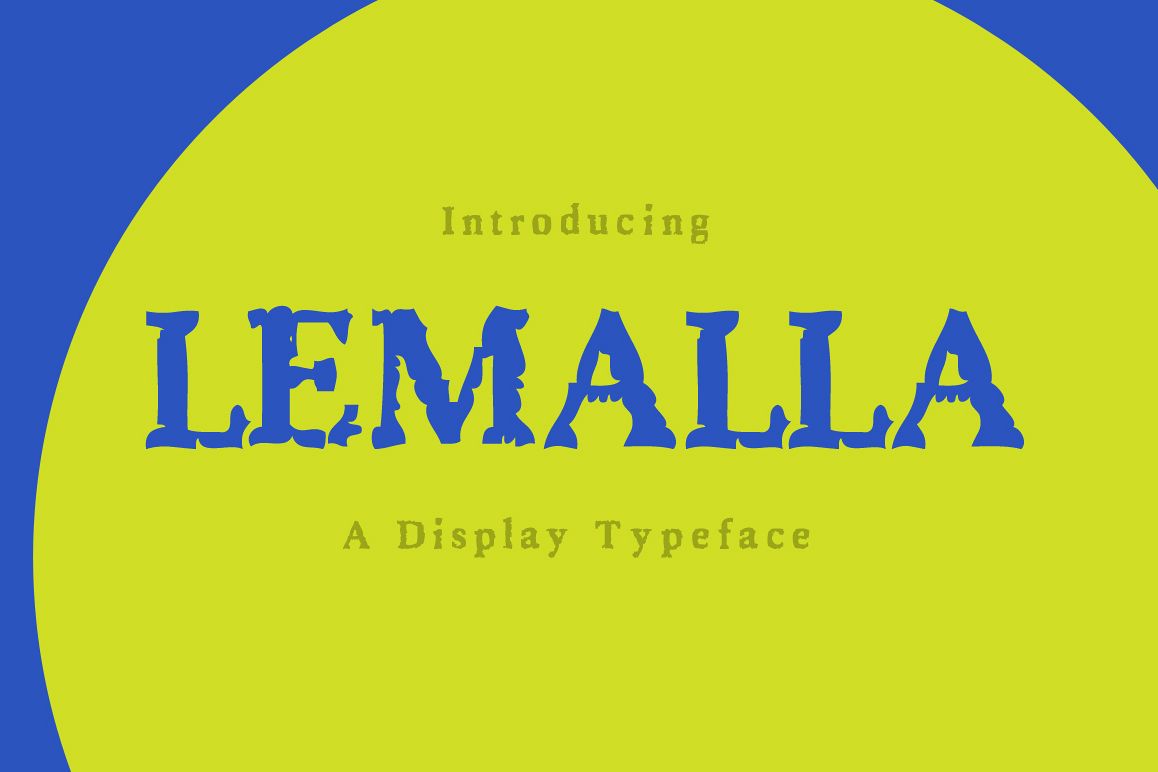
Introducing Lemalla!
Lemalla is a fresh & modern font. Lemalla is perfectly suited to stationery, logos, t-shirt, paper, print design, website header, photo frame, flyer, music cover, poster, image slider and much more.